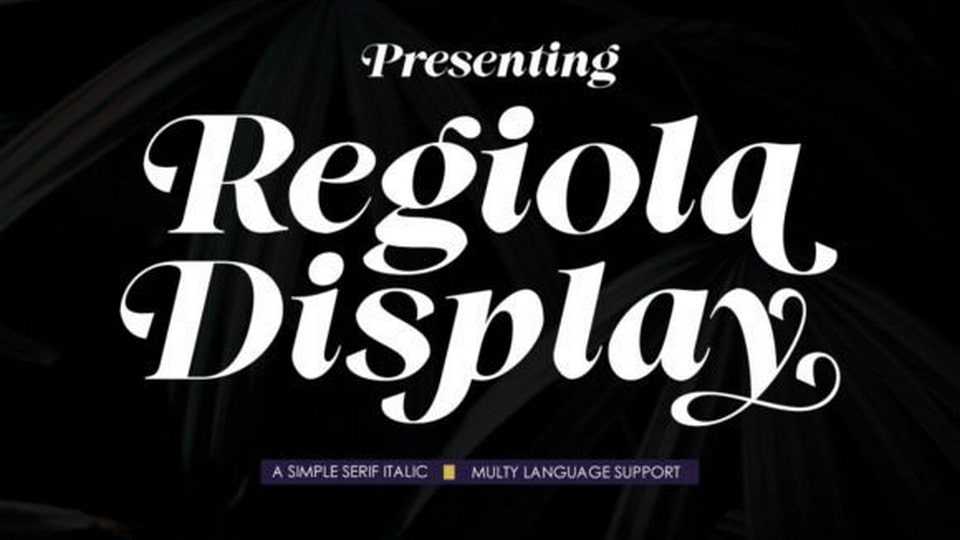
Download Regiola Display font, a luxurious serif typeface that epitomizes sophistication and opulence. Its regal serifs and graceful curves exude timeless elegance.